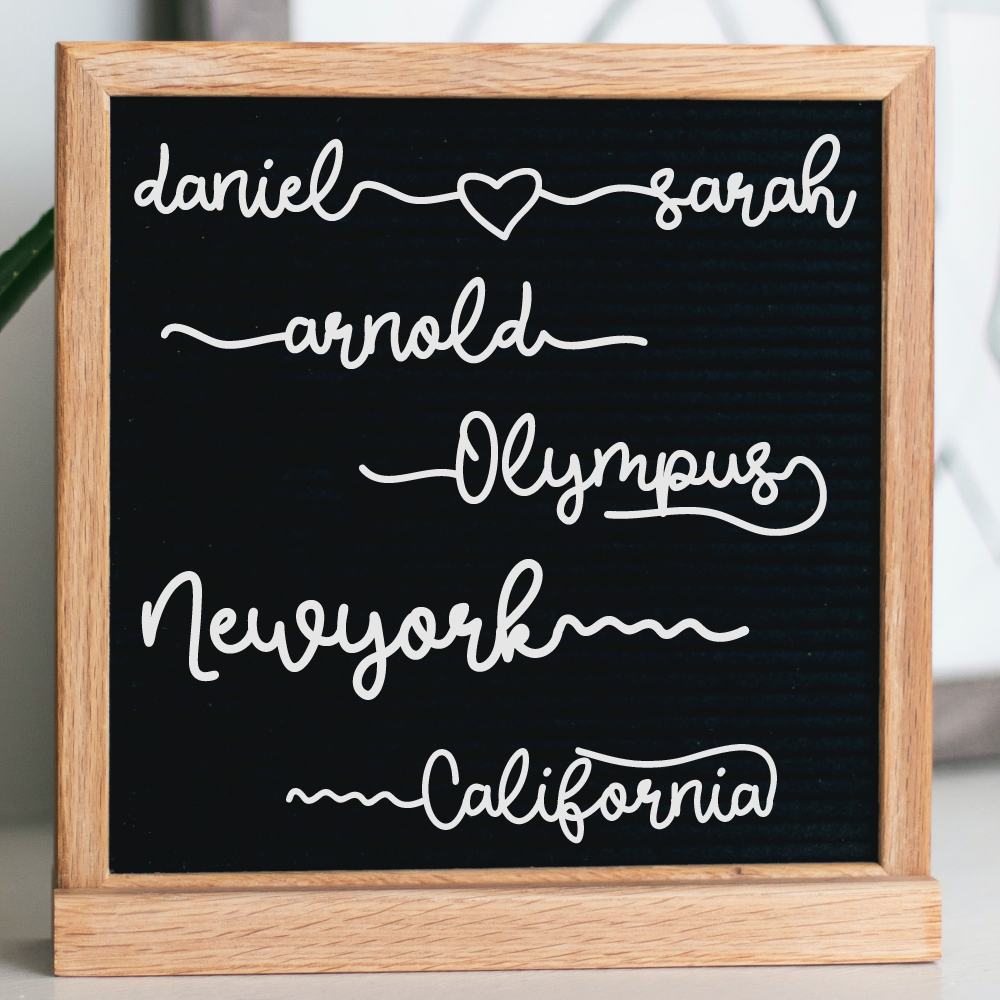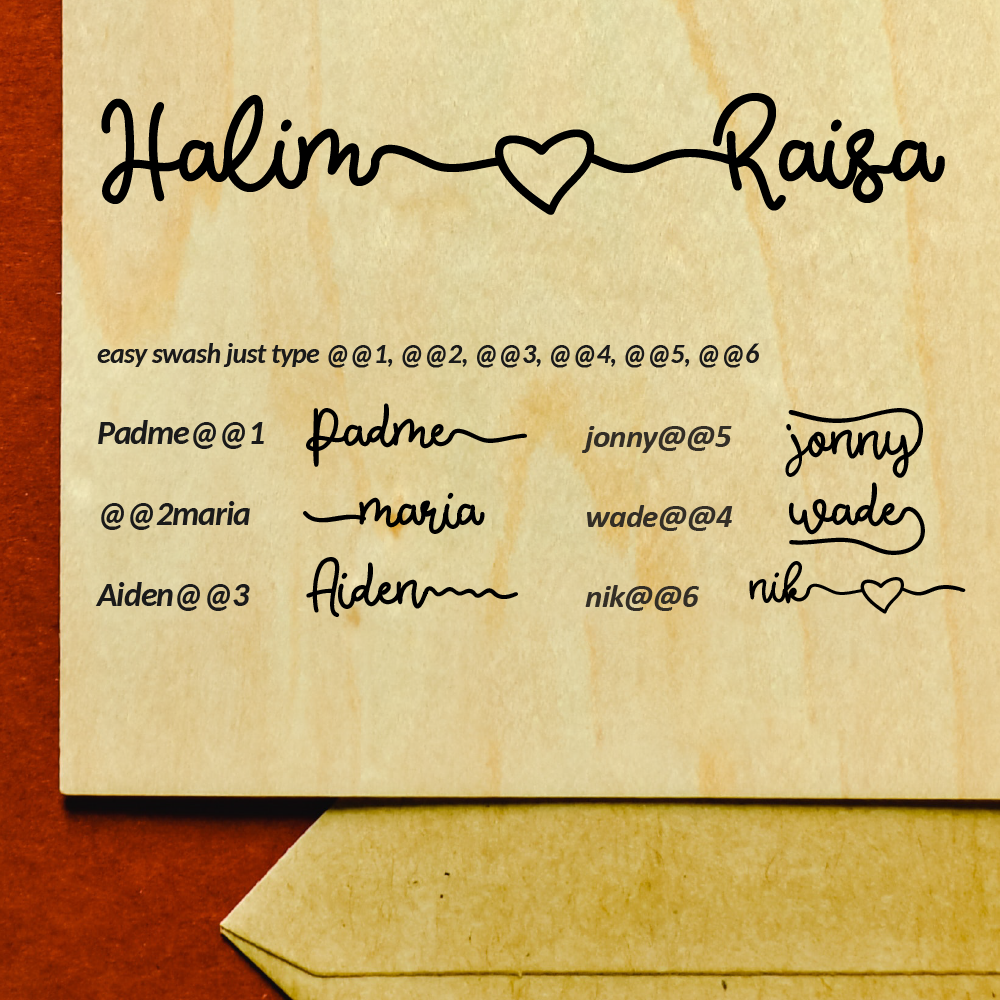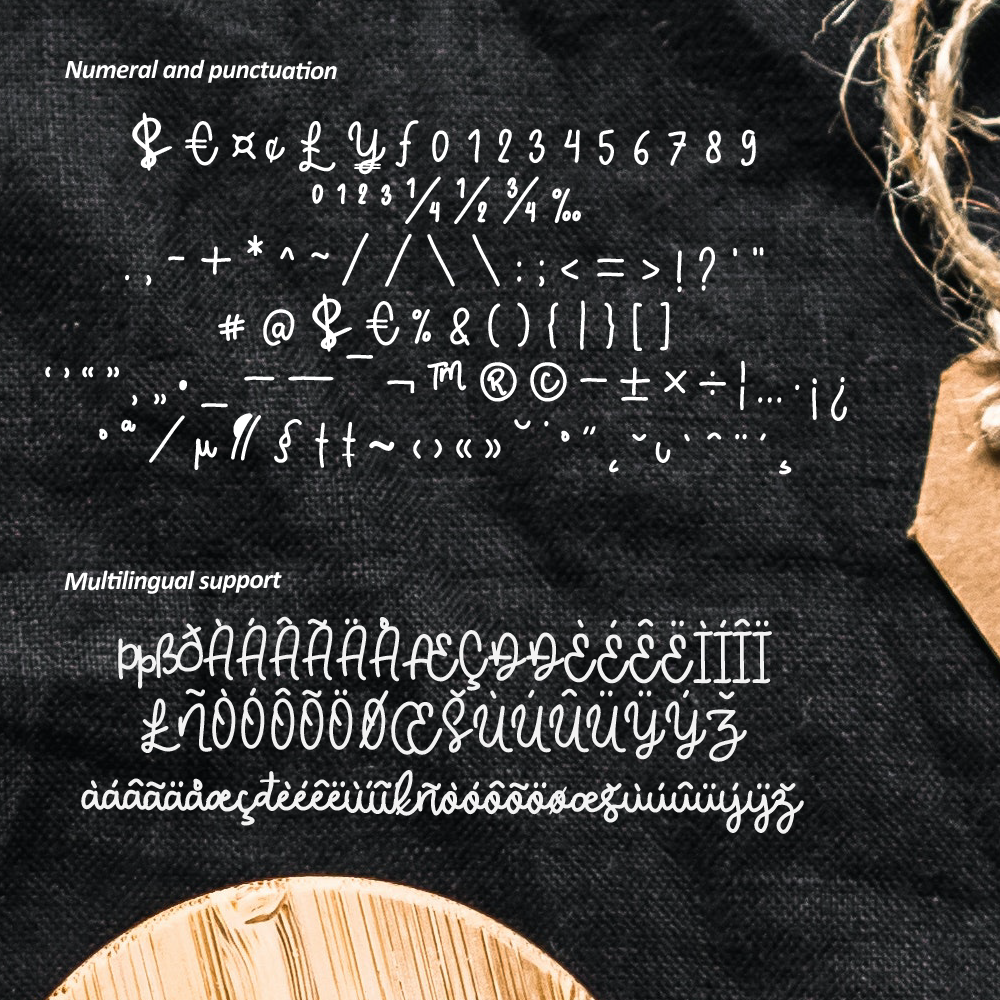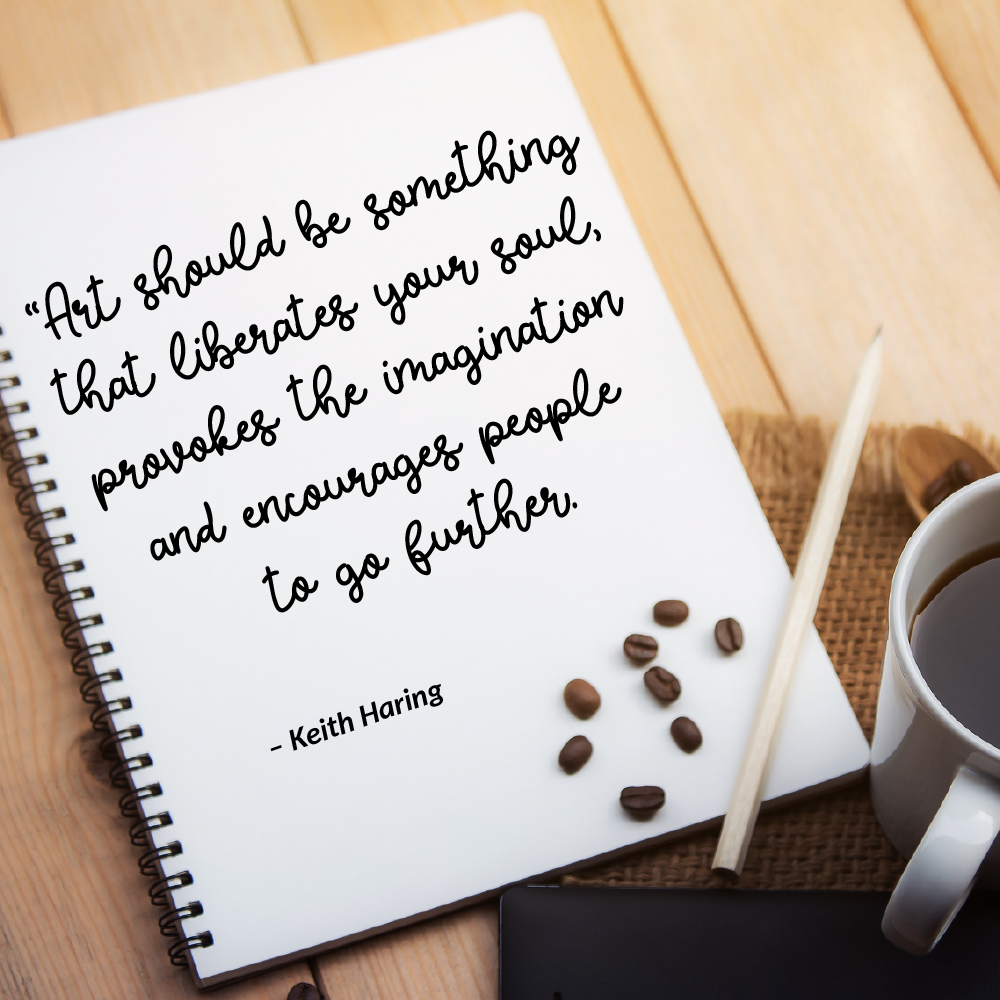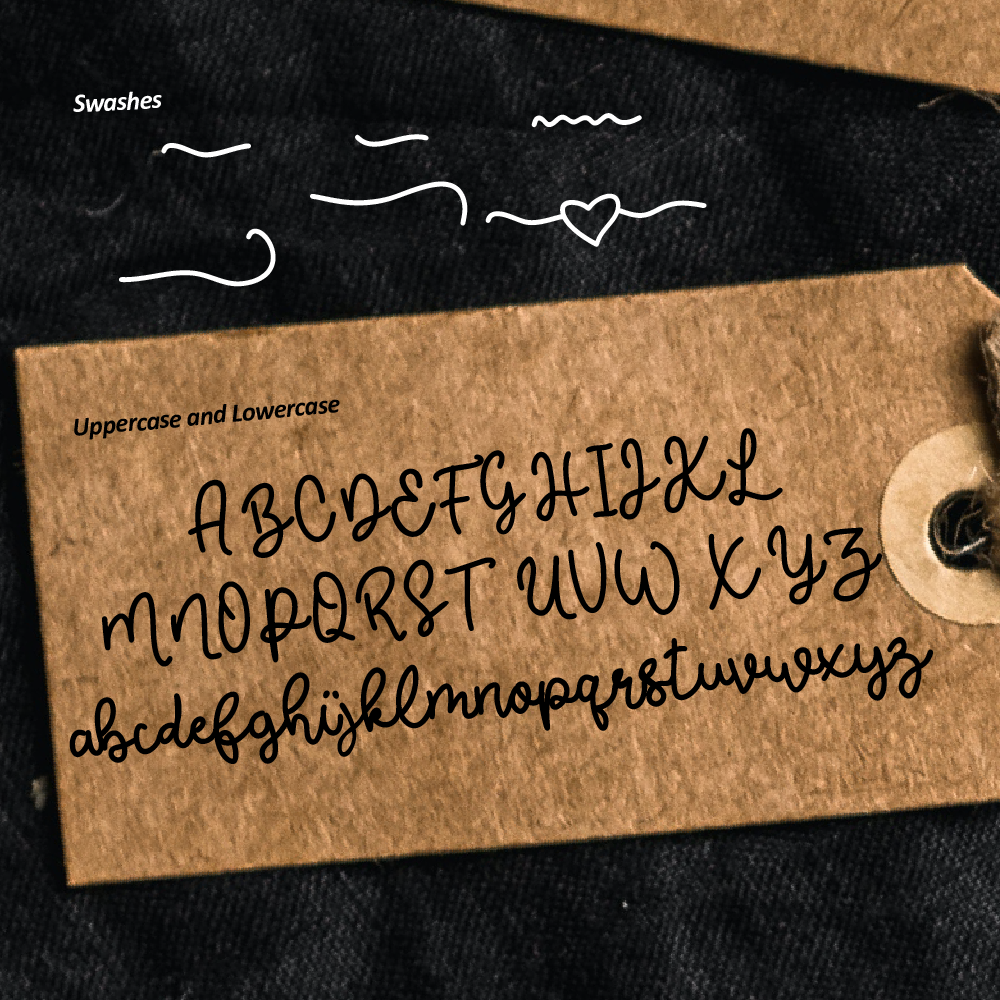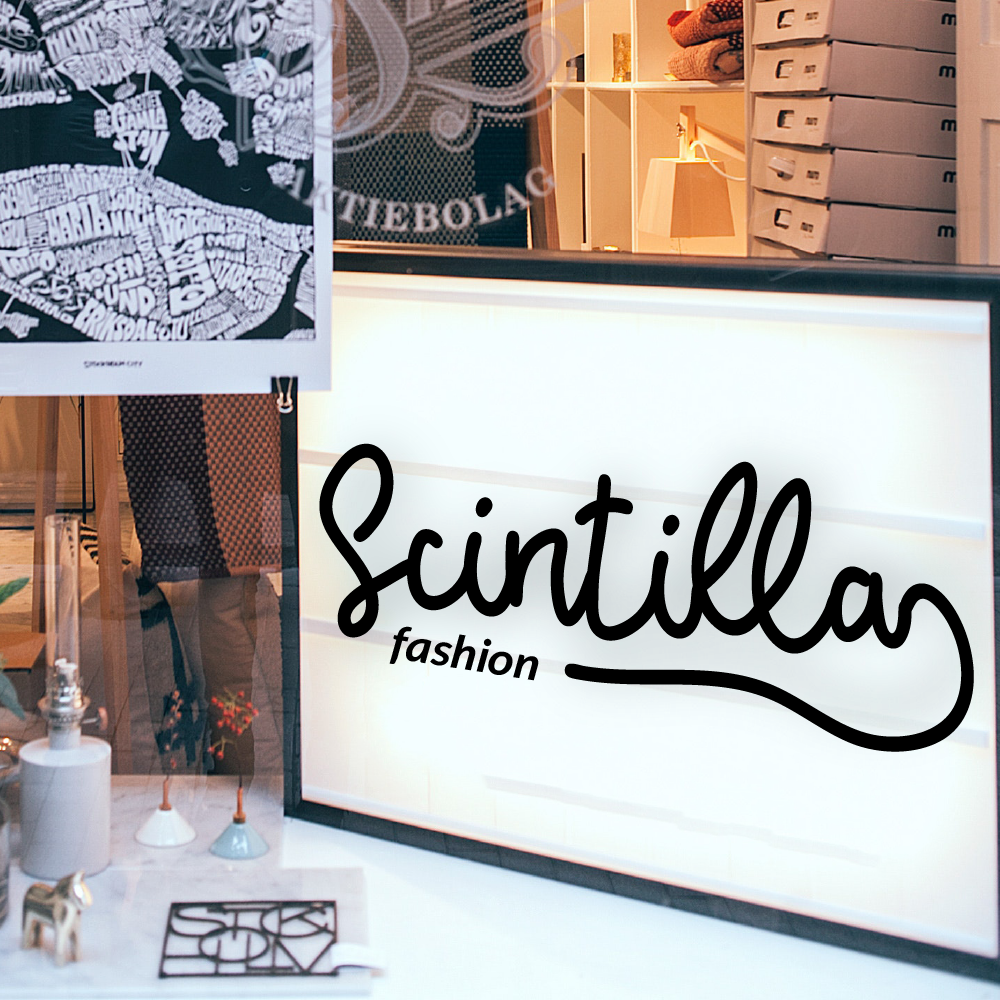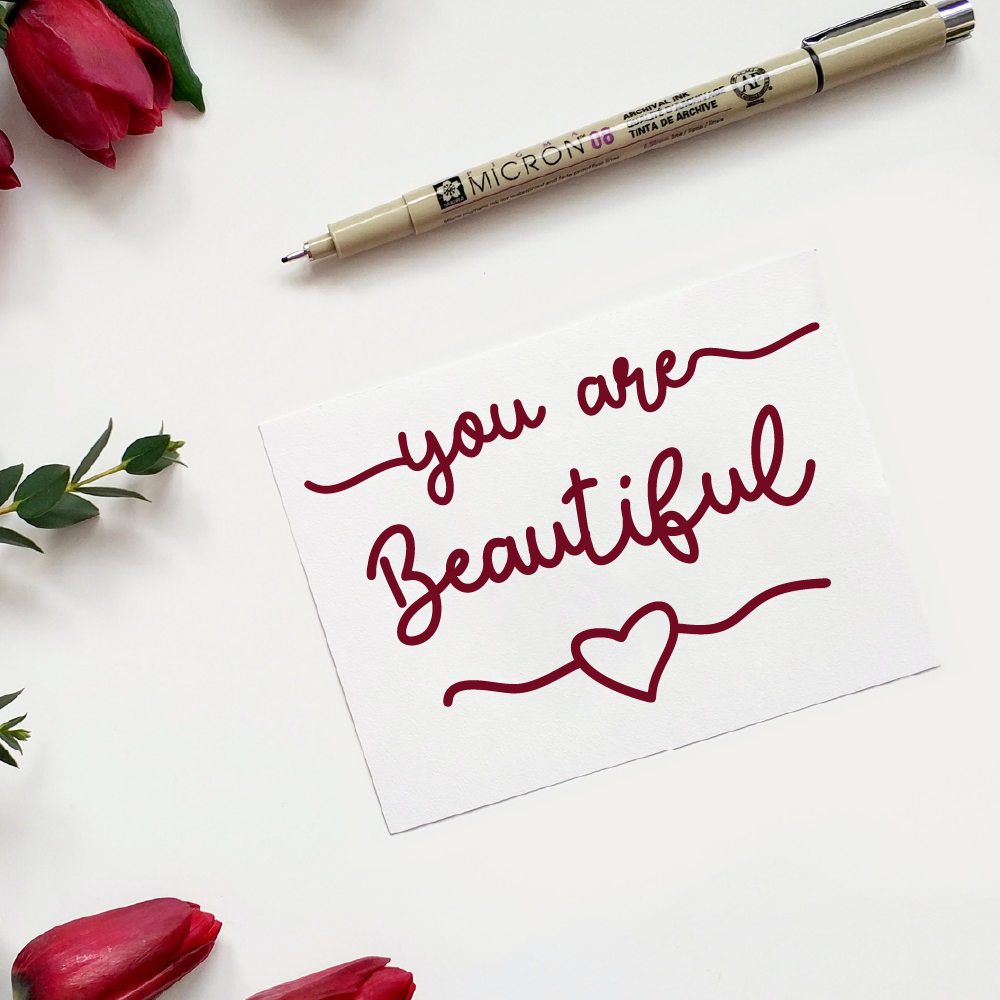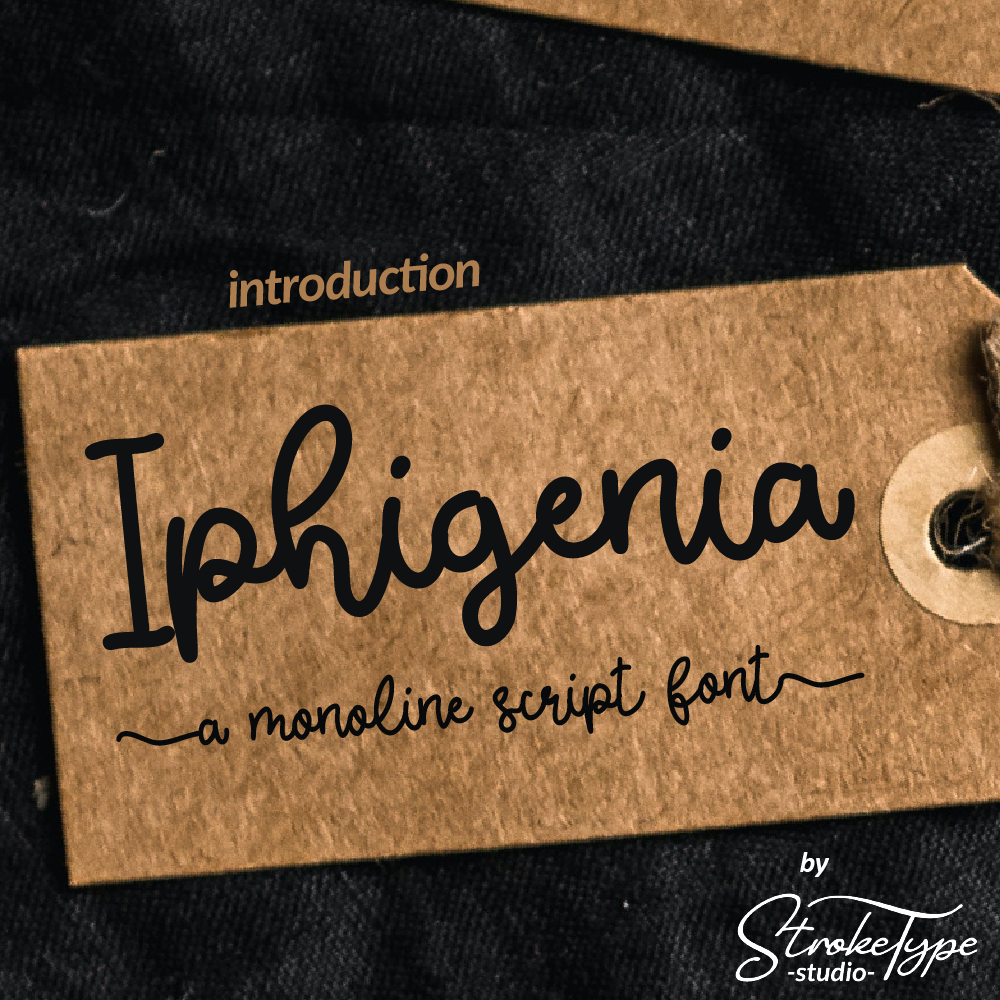
Iphigenia Monoline Script Font
Introducing the lovely Iphigenia Script Font!
Iphigenia is a Monoline Script font, with a natural & stylish flow. Iphigenia Font is perfect for many different project such as logos & branding, invitation, stationery, wedding designs, social media posts, advertisements, product packaging, product designs, label, photography, watermark, special events or anything.
Features
- Uppercase and Lowercase letters
- Numbering and Punctuations
- Multilingual Support
- Easy access swash, just type @@1, @@2, ... etc